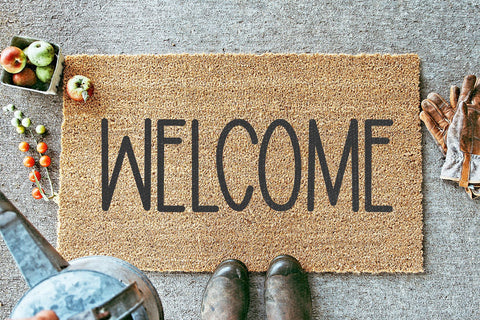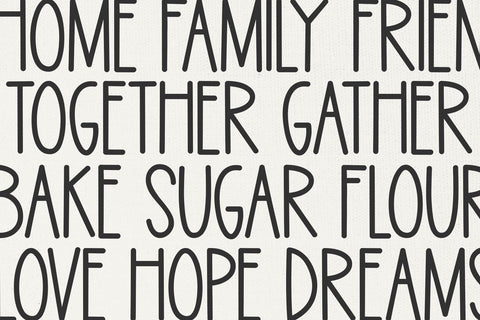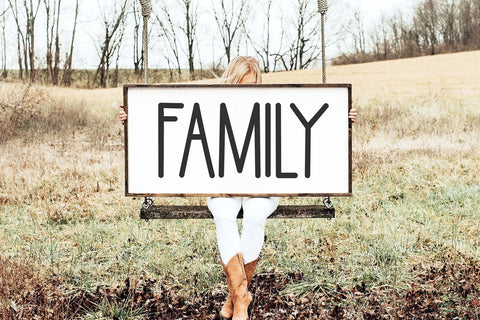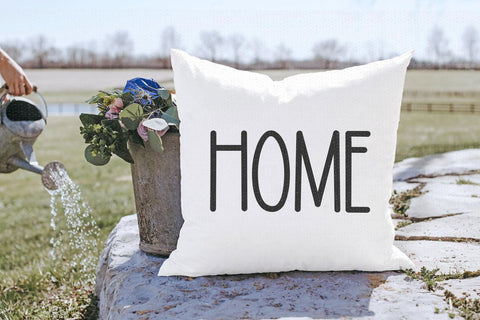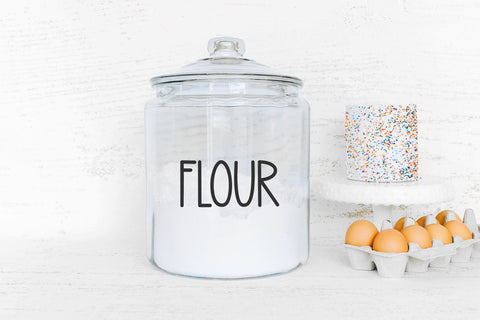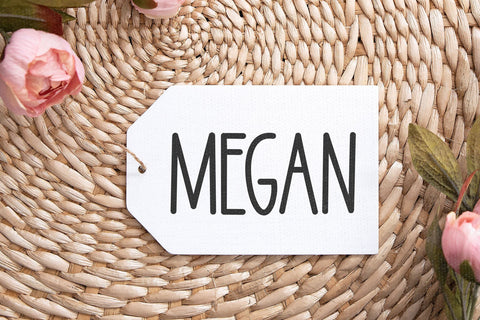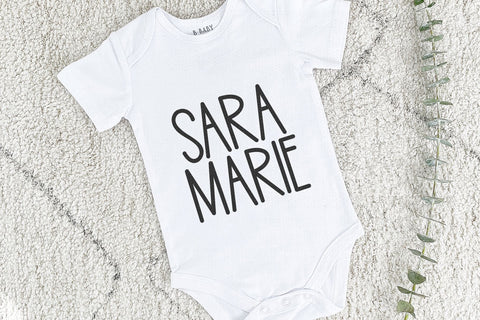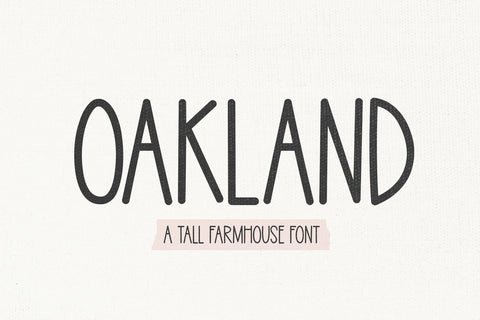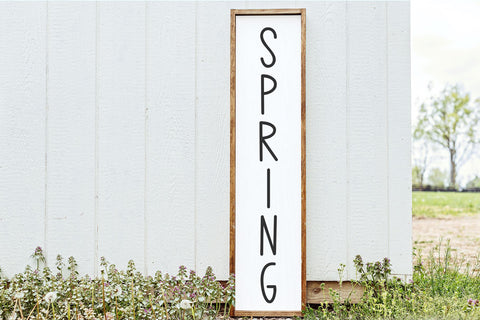
Oakland - Tall Farmhouse Font
Oakland is a tall farmhouse font.
This font is perfect for all of your craft projects, shirts, stickers, signs and more!